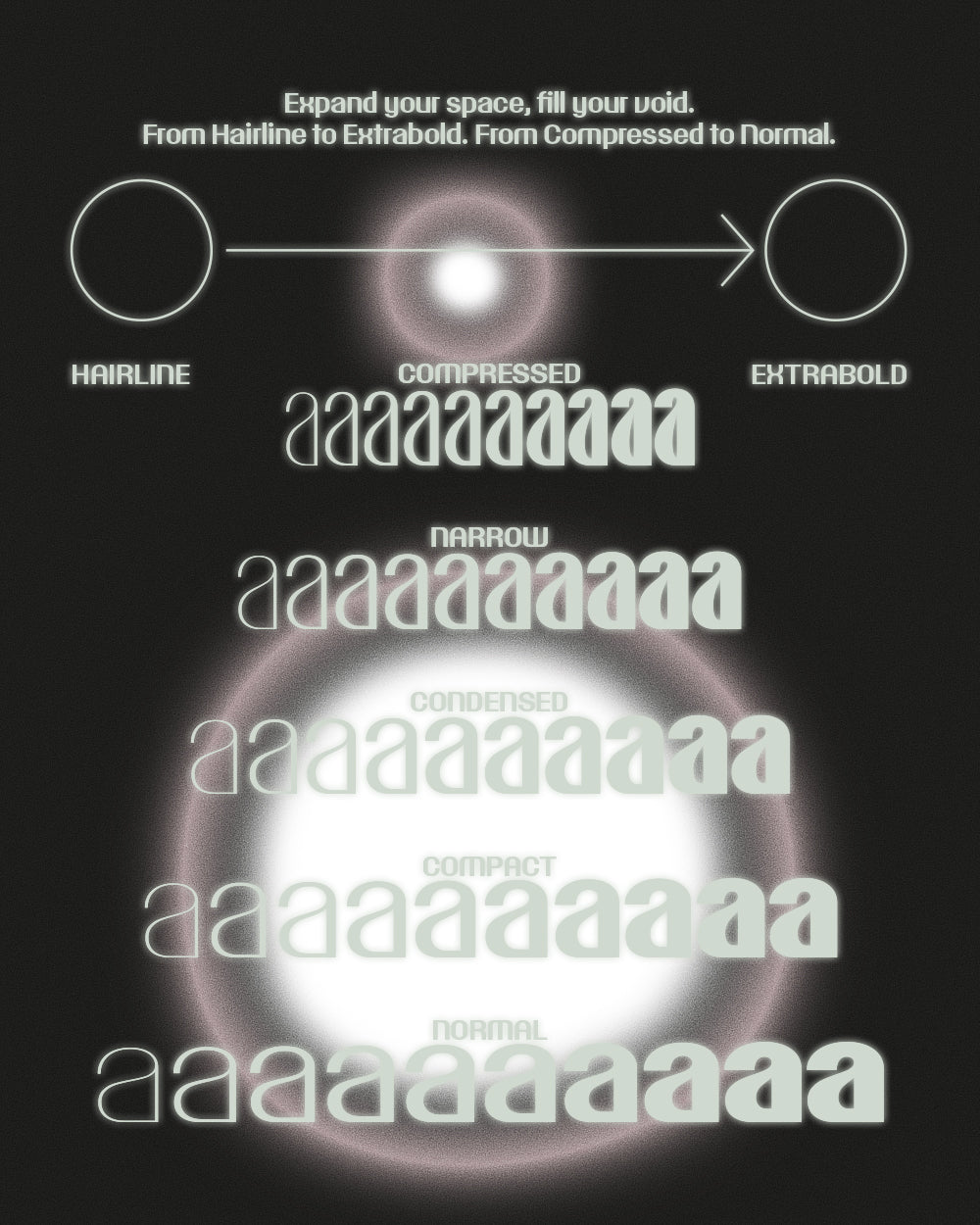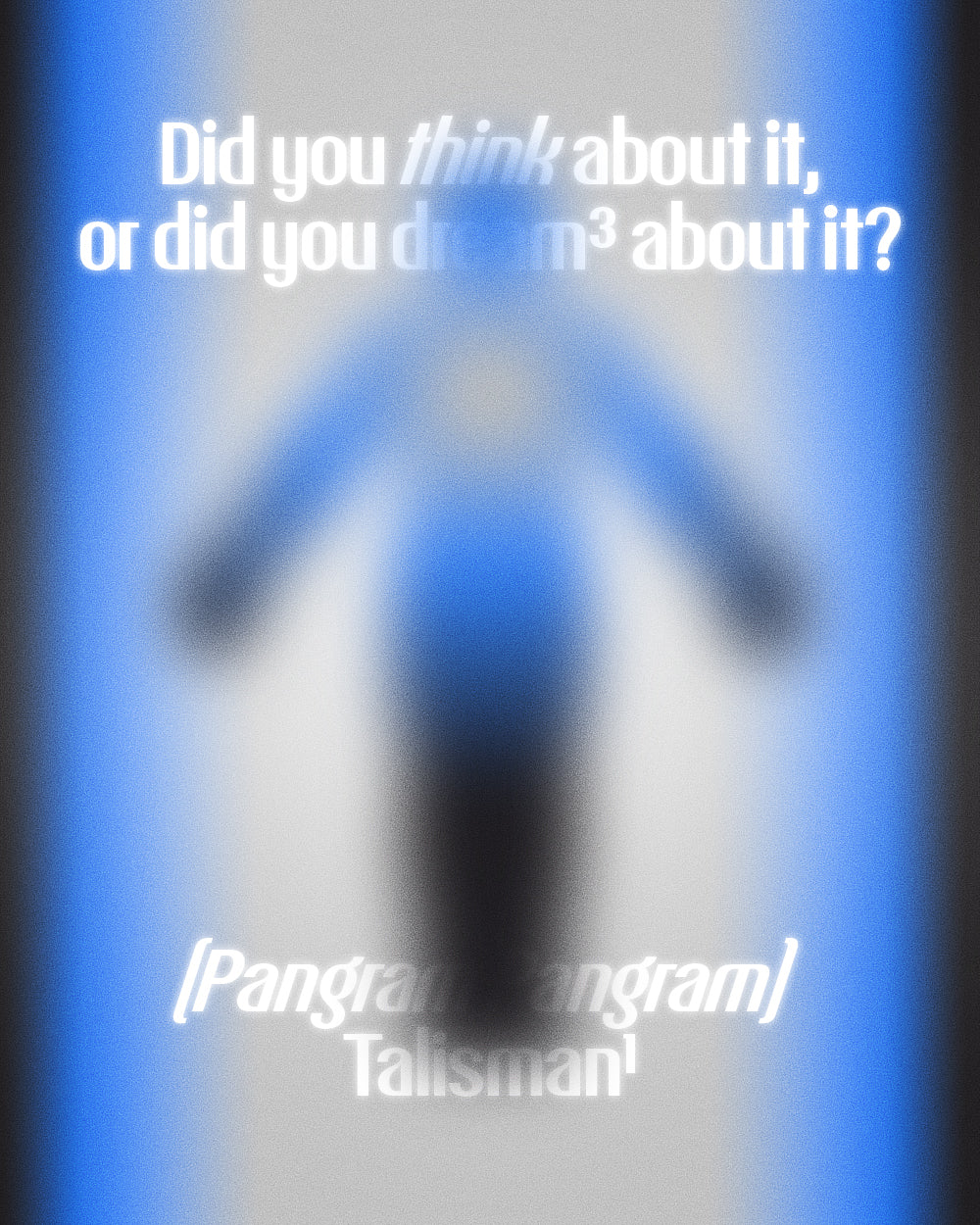
Talisman Narrow
Talisman Narrow is variable
Talisman
Narrow Family
Talisman Narrow's Features
Alternate a
Alternate g
Alternate N n u y
Flat 69
Alternate &
Alternate j
Alternate g
Standard ligatures
Case sensitive forms
Slashed Zero
Old style figures
A lucky font to carry around
No matter how much talent we have at our disposal, a great deal of a design project or career is often determined by sheer luck. Talisman is an attempt to harness the mysterious catalyzer and channel it through a hyper-minimalist design: with its casual, stripped-down, almost simplistic structure, it embodies the most prominent quality of luck: effortlessness, both in its manufacturing process and in its use.
Created with versatility in mind, Talisman's generous range of weights and widths ensure a great variety of visual expressions, only made more vibrant by its dashing oblique counterpart. It is a typeface ready to become the protagonist of a designer's most successful endeavors, an amulet to keep in one's pocket at all times, both as a first and as a last creative resort. Talisman's Narrow cut is versatile yet unique.